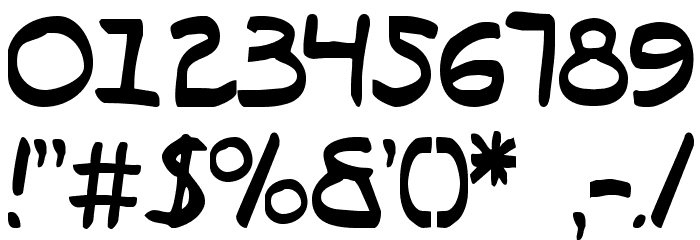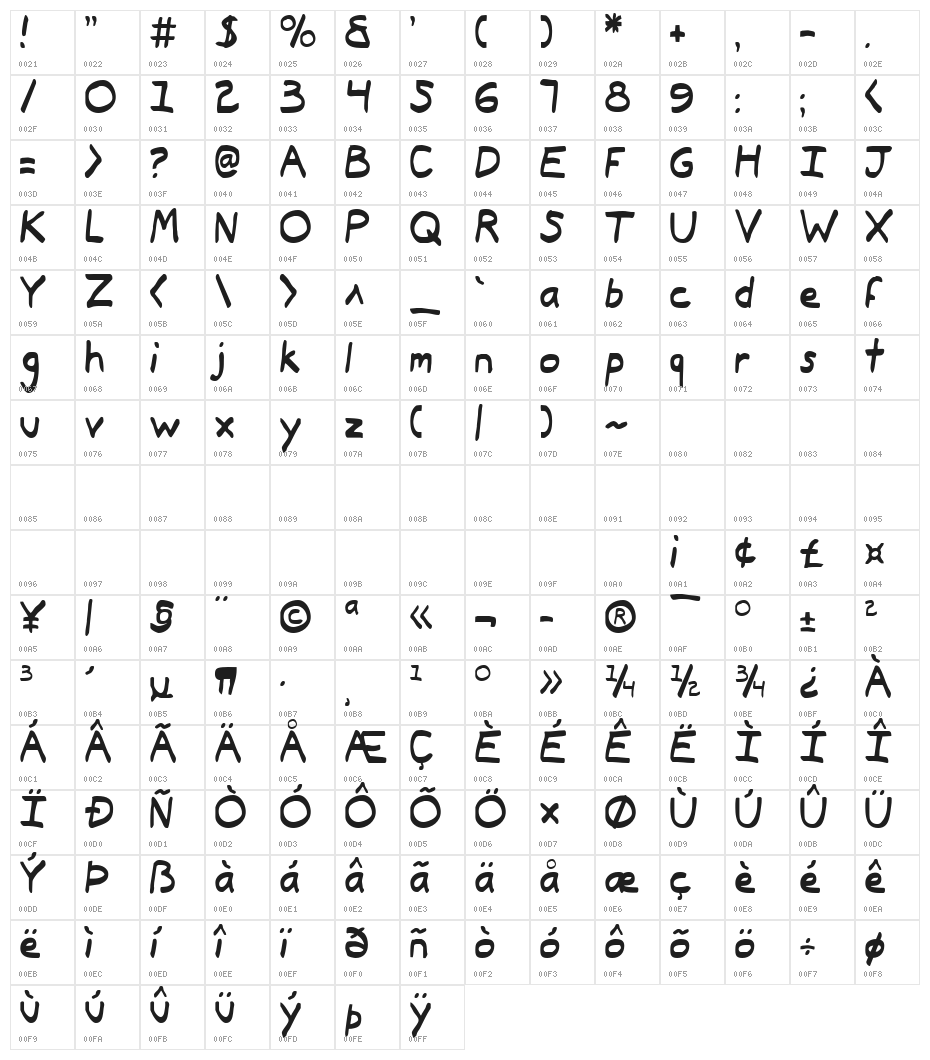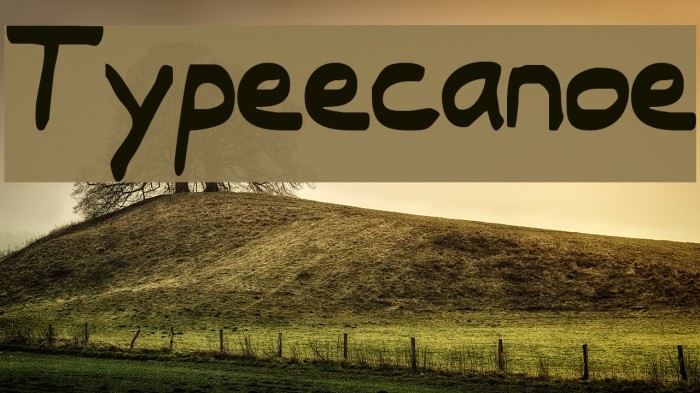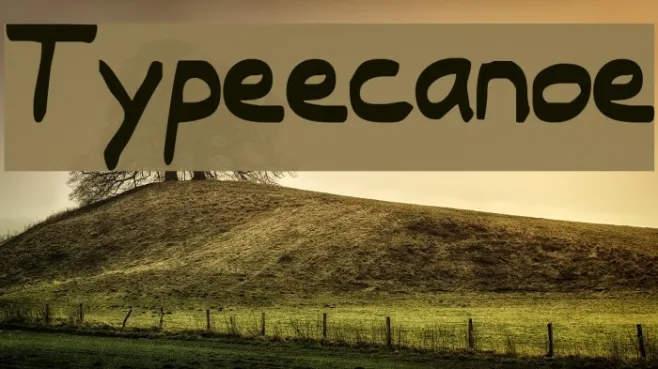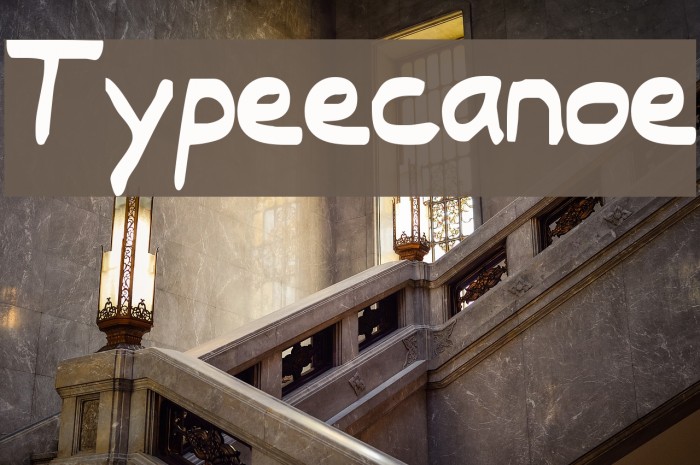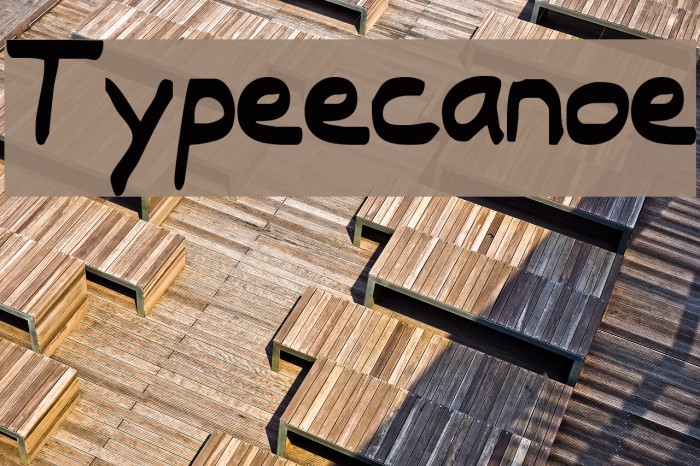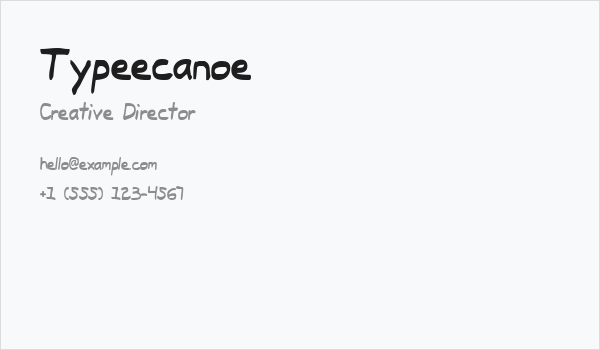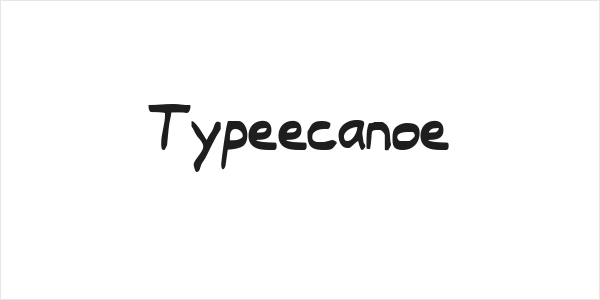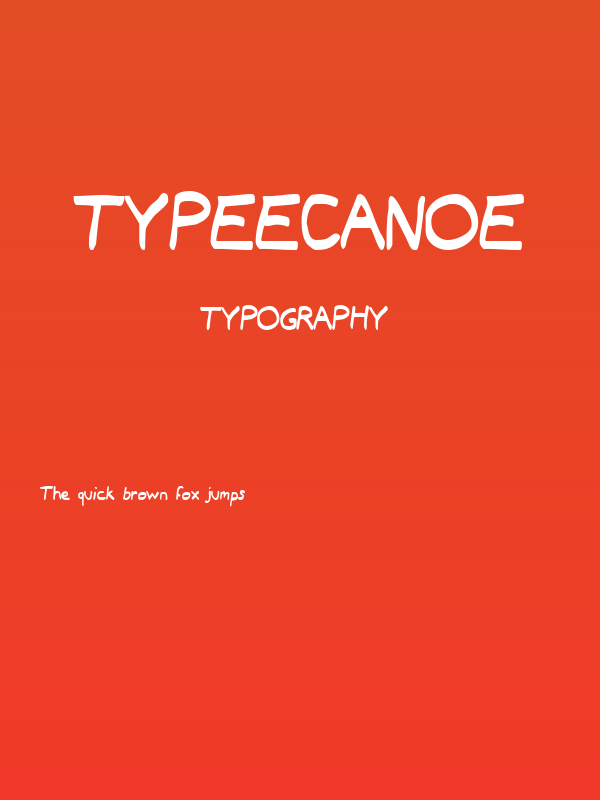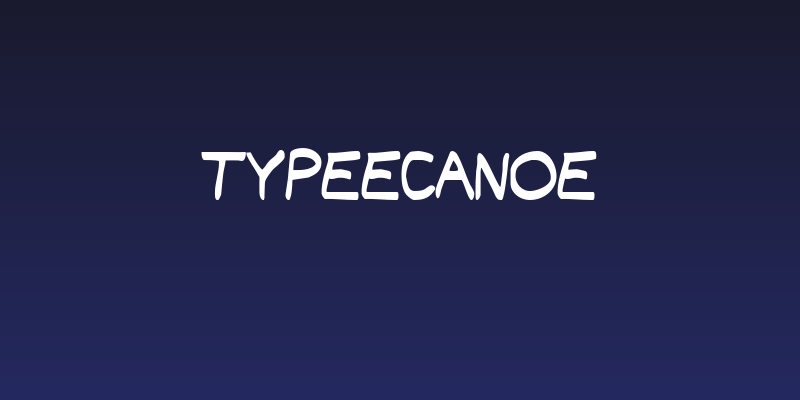
Typeecanoe Font
Typeecanoe Description
This font features a playful and informal style, characterized by its hand-drawn appearance. The letters are bold and slightly irregular, giving them a whimsical and approachable feel. The uppercase and lowercase letters maintain a consistent style, with rounded edges and varying stroke widths that add to the casual aesthetic. The numerals and special characters follow the same design principles, ensuring a cohesive look throughout. This font's unique charm makes it suitable for projects that require a friendly and engaging touch.
| Proposed Projects | Ideal for children's books, casual invitations, playful branding, and creative posters. |